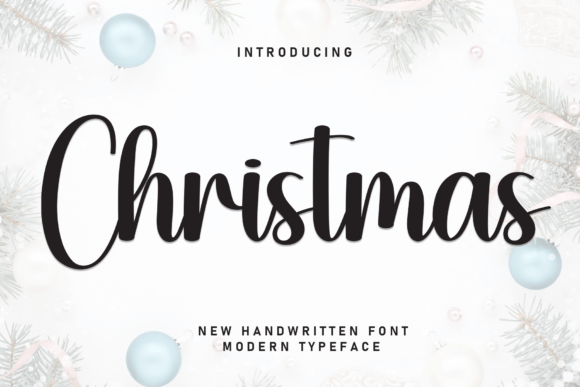
The Magic of Christmas Font: Bringing Joy to Your Designs
As a designer, there’s nothing quite like the thrill of creating something new and special for the holiday season. You’ve spent hours brainstorming ideas, experimenting with different colors and layouts, and finally, it’s time to bring your vision to life. And that’s where Christmas Font comes in – a beautiful, handwritten font that adds a touch of magic to any design.
This charming font is perfect for creating eye-catching logos, branding, and quotes that capture the essence of the holiday season. Every letter has a unique and beautiful touch, making your design come alive in a way that’s both festive and timeless. Whether you’re working on a Christmas card, a holiday-themed website, or a social media campaign, Christmas Font is the perfect choice to make your design stand out.
Christmas Font Key Features
- Unique Characteristics: Ornate, festive design with intricate details and flourishes, perfect for holiday-themed projects
- Font Weight: Regular, Bold, and Italic styles available
Designer Review: Christmas Font
First off, I want to say that the Christmas Font has some amazing elements ✨. The festive vibe is palpable, and the variety of ornaments and patterns is quite extensive. It’s clear that the designers have put in the effort to create a cohesive and visually appealing set of characters.
The font’s versatility is also a major plus ✨. It can be used for a wide range of applications, from Christmas cards to social media graphics. The fact that it’s highly customizable is a big plus, allowing users to tailor the font to their specific needs.
- ⚠️ Limited font weight options – While the font has a good range of styles, I would have liked to see more weight options to accommodate different design requirements.
- ⚠️ Not ideal for body text – The font is best suited for headings and titles, as the readability can be compromised when used for large blocks of text.
Overall, I would give the Christmas Font 3.5 out of 5 stars. While it has its limitations, it’s a great choice for anyone looking to add a festive touch to their designs. With a bit more development, it could easily become a top contender in the font market.
Use Christmas Font in conjunction with festive colors and graphics to create a cohesive holiday design.
Experiment with different font sizes and styles to add visual interest to your design.
Combine Christmas Font with other holiday-themed fonts to create a unique and eye-catching design.
Christmas Font is perfect for:
Holiday greeting cards and invitations.
Christmas party decorations and signage.
Holiday social media graphics and ads.
Alternatives to “Christmas Font” for Designers
1. Jingle Belle
Jingle Belle is a playful, elegant font perfect for creating a festive atmosphere. It’s ideal for use in invitations, greeting cards, and other holiday-themed designs. Compared to Christmas Font, Jingle Belle is more refined and sophisticated, making it suitable for more formal designs.
2. Curlz
Curlz is a whimsical, handwritten font that adds a touch of magic to any design. It’s great for use in children’s books, party decorations, and other fun, playful projects. Unlike Christmas Font, Curlz has a more informal feel, making it perfect for casual, creative designs.
Great Vibes is a modern, elegant script font that’s perfect for creating a sophisticated holiday design. It’s ideal for use in wedding invitations, holiday cards, and other high-end projects. Compared to Christmas Font, Great Vibes is more polished and refined, making it suitable for luxury brands and high-end designs.
Carolyna Pro is a elegant, modern font that’s perfect for creating a stylish holiday design. It’s ideal for use in fashion brands, luxury goods, and other high-end projects. Unlike Christmas Font, Carolyna Pro has a more sophisticated feel, making it perfect for brands that want to convey elegance and refinement.